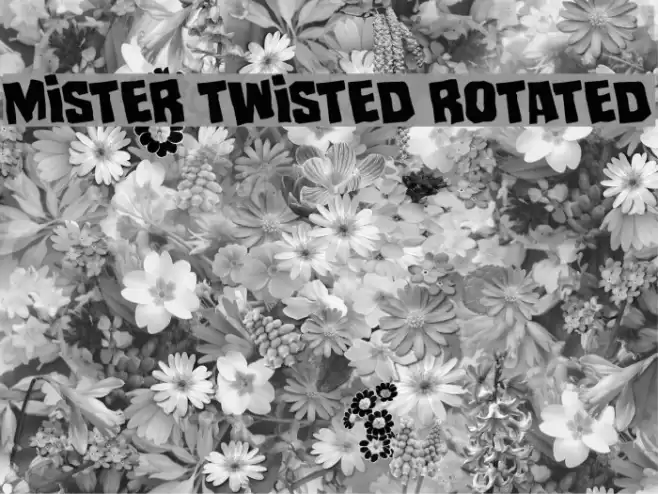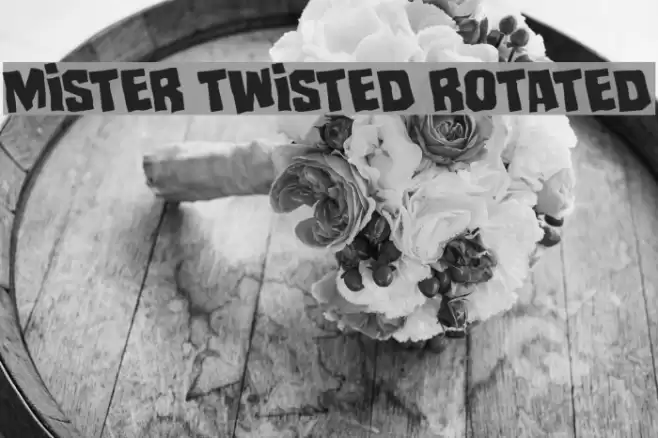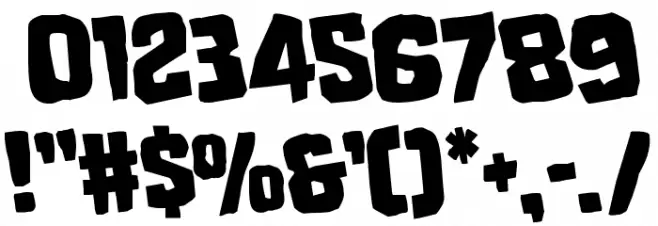
Mister Twisted Rotated Font
Mister Twisted Rotated Description
This font features a playful and dynamic style with a twisted, rotated appearance that gives each character a unique and quirky look. The bold, irregular shapes create a sense of movement and energy, making it stand out in any design. The uppercase and lowercase letters maintain a consistent style, while the numbers and special characters follow the same whimsical theme. This font is perfect for projects that require a fun and informal touch, such as children's books, party invitations, or creative posters.
A playful, twisted font with bold, irregular shapes and a dynamic style from Uncategorized fonts.
- Proposed Projects: Ideal for children's books, party invitations, creative posters, and any project needing a fun, informal touch.